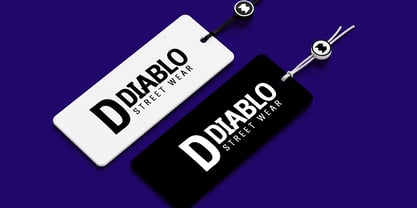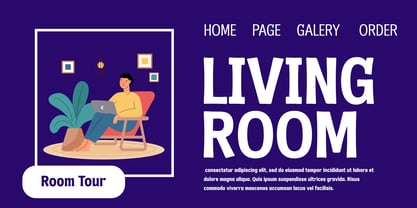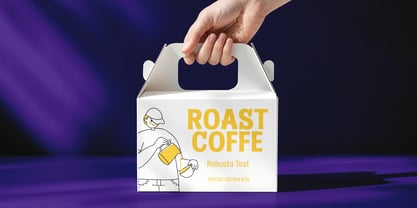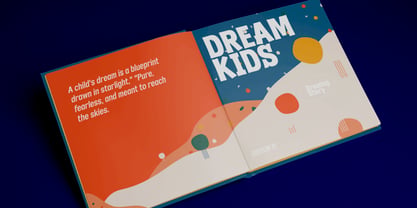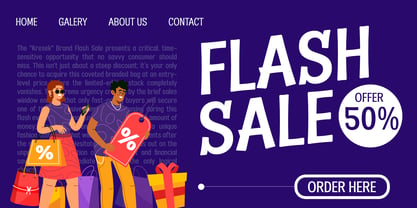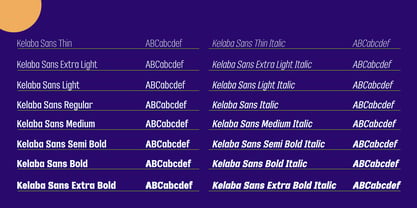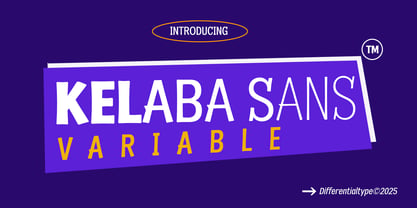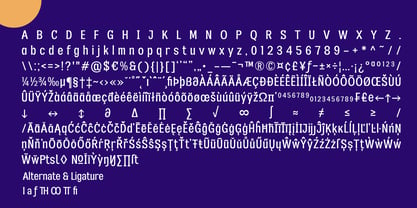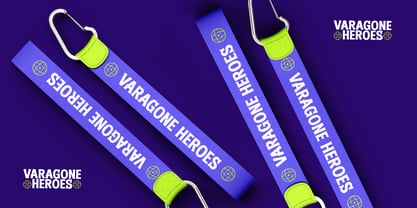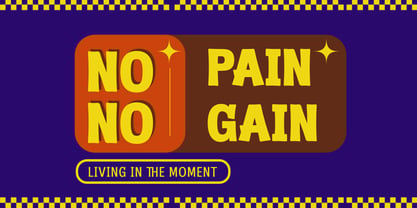
Kelaba Sans Variable
The Kelaba Sans Variable Font Family was designed by Sidik Sidik and published by Differentialtype. Kelaba Sans Variable contains 1 styles. More about this family
Kelaba Sans Varaible is a striking and authoritative sans-serif display, engineered for designers seeking a powerful yet harmonious typographic presence. It masterfully balances a bold, impactful appearance with essential legibility, ensuring your message is both seen and understood. This typeface boasts a strong character, making it the perfect choice for high-impact applications, whether you're crafting memorable headlines, commanding news titles, or creating a distinctive element within a logo or compelling product branding. Kelaba Sans Varaible ensures that every piece of text, regardless of its size or role, stands out with confidence and clarity. The versatility of the Kelaba Sans Varaible is truly exceptional, offering a comprehensive range of styles, from the delicate Thin weight to the uncompromising Extra Bold, each accompanied by a matching Italic. This expansive toolkit provides ultimate flexibility for any design project. Utilize the heavier weights to forge powerful visual anchors in display work, or select the lighter and standard weights to form easily readable body text. Kelaba Sans Varaible is the definitive, all-in-one sans-serif solution designed to elevate any visual identity with its robust style and dependable readability across all media.